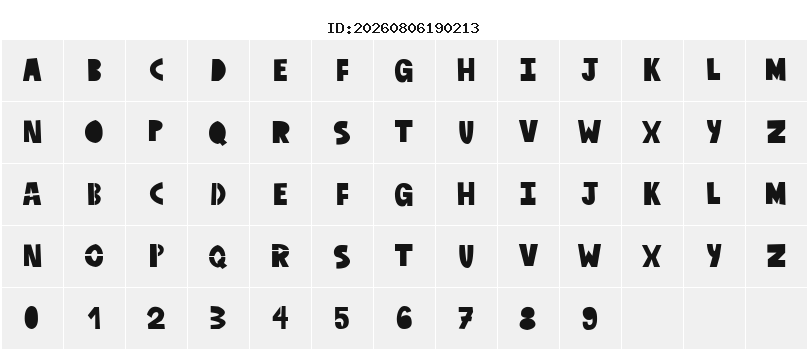
Old Providence Preview
• Font Name: Old Providence
• Font Style: New Roots
• Font ID: TypeSailor-MateoRivano: Old Providence New Roots: 2014
• Full Font Name: Old Providence New Roots
• PostScript Name: OldProvidence-NewRoots
• Designer: David Espinosa - Mateo Rivano
• Manufacturer: Type Sailor - Mateo Rivano
About Old Providence.ttf
Old Providence.ttf is a modern, elegant sans-serif font designed for ultimate readability and visual harmony. Perfect for branding, headlines, web design, and print materials.